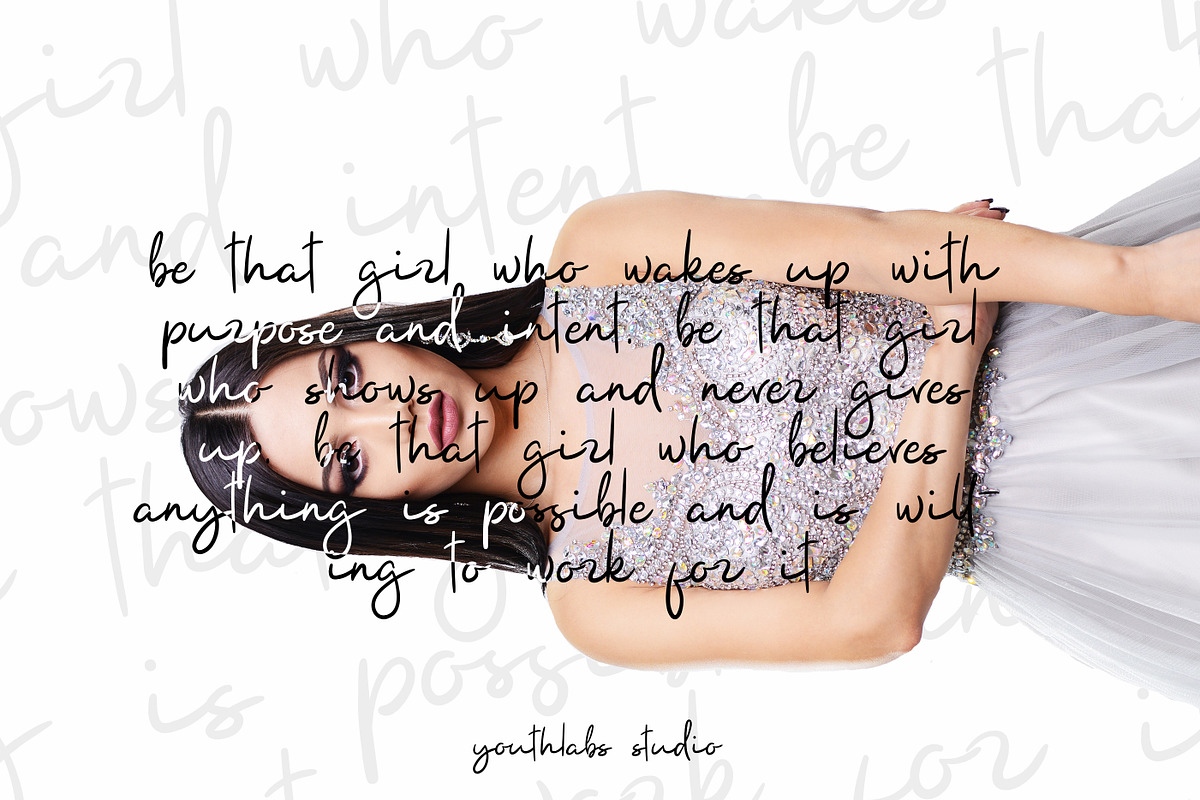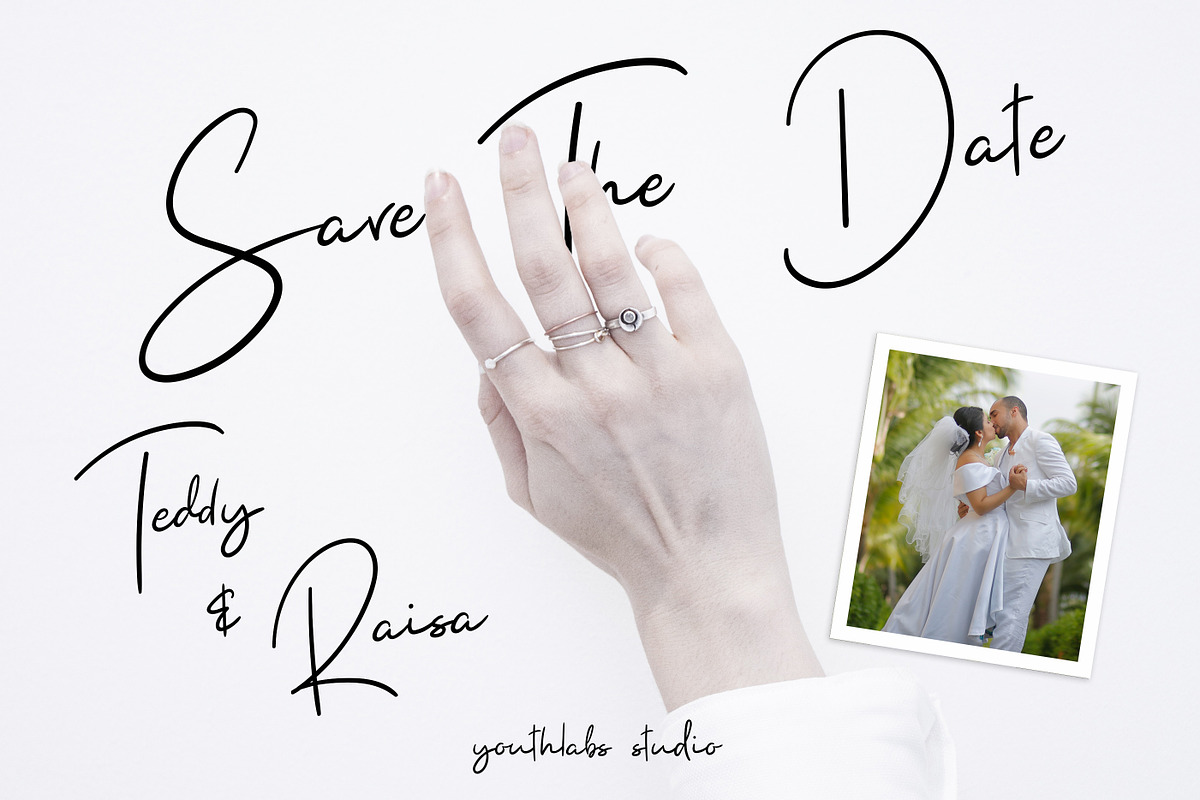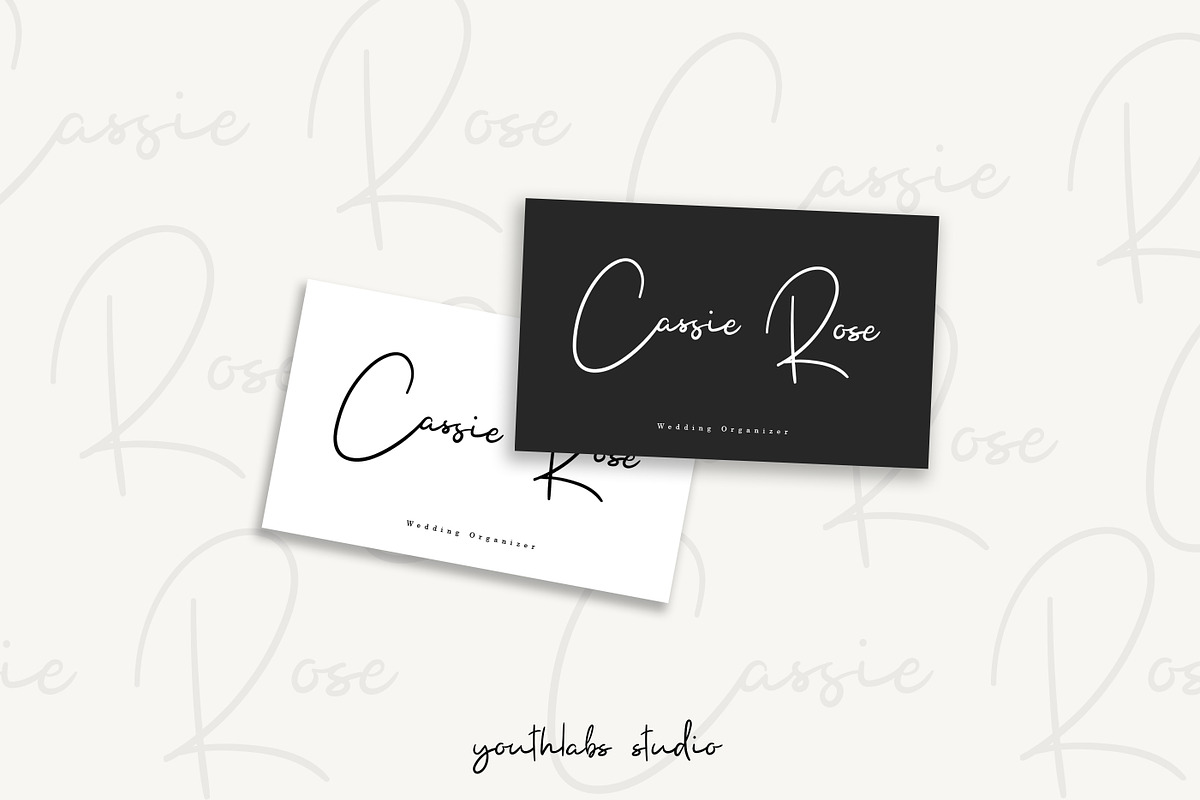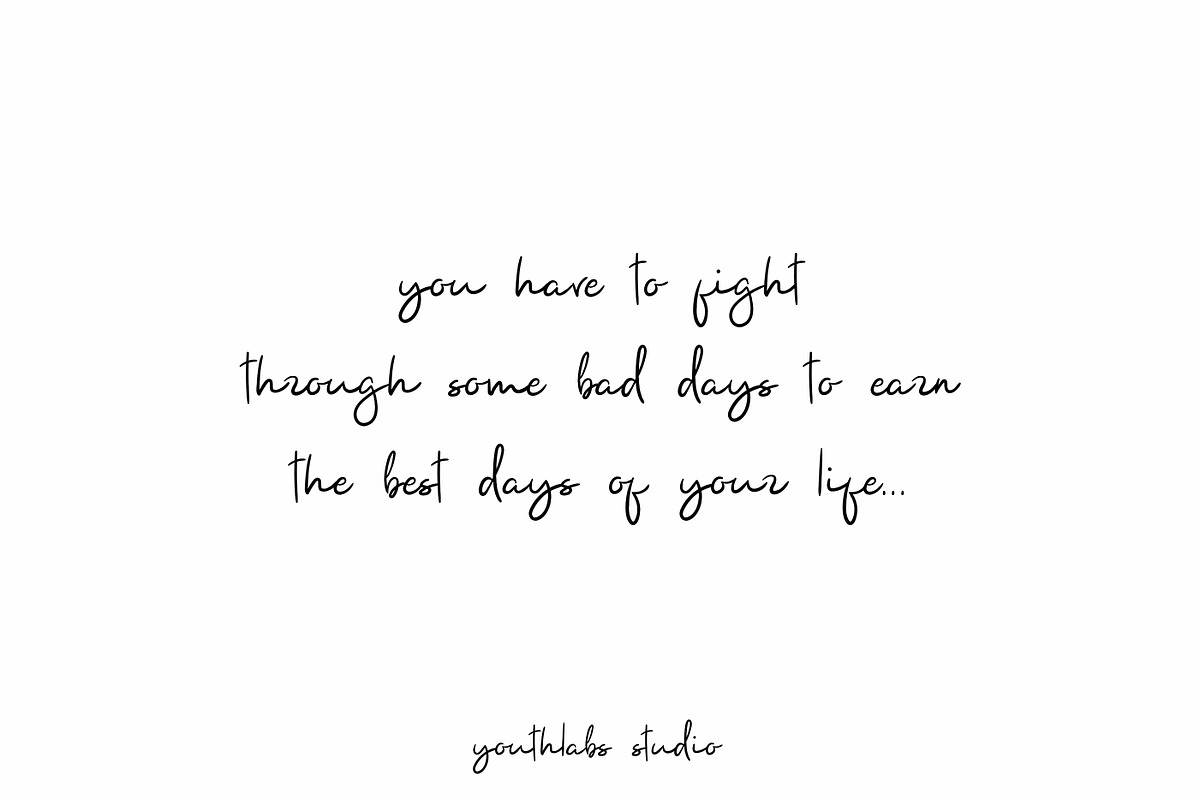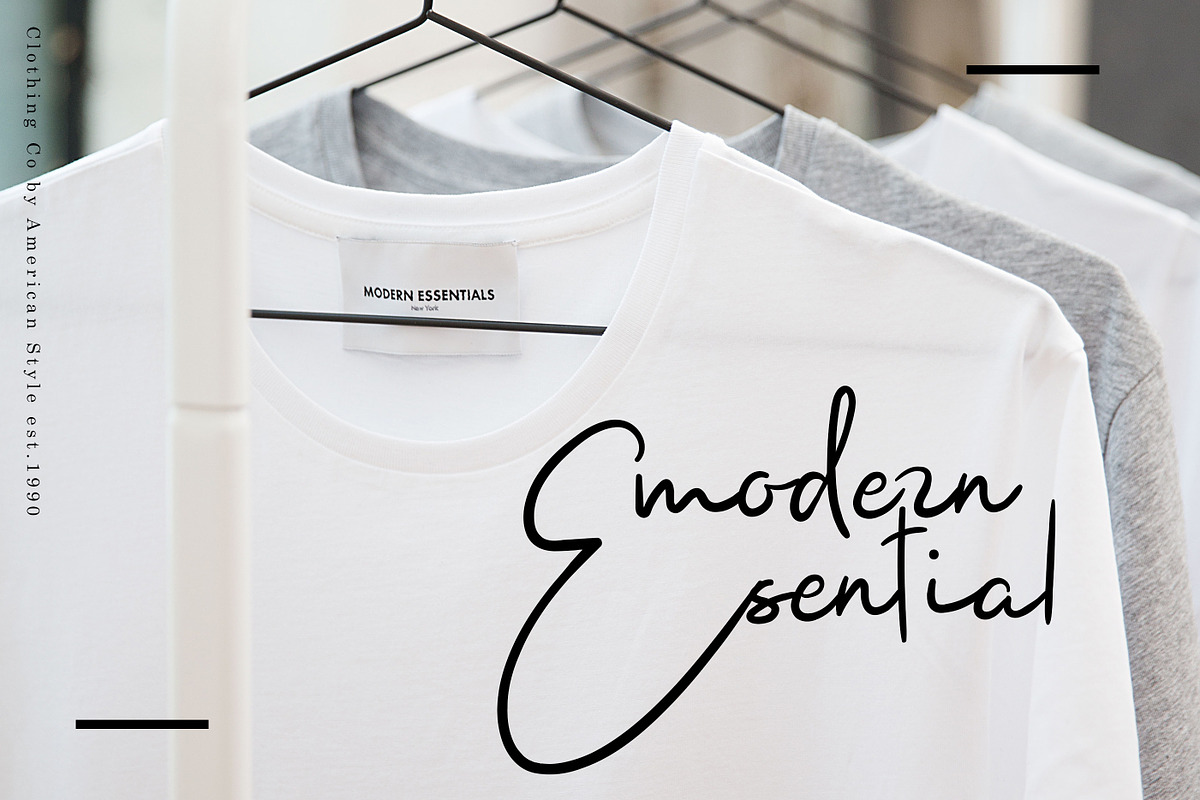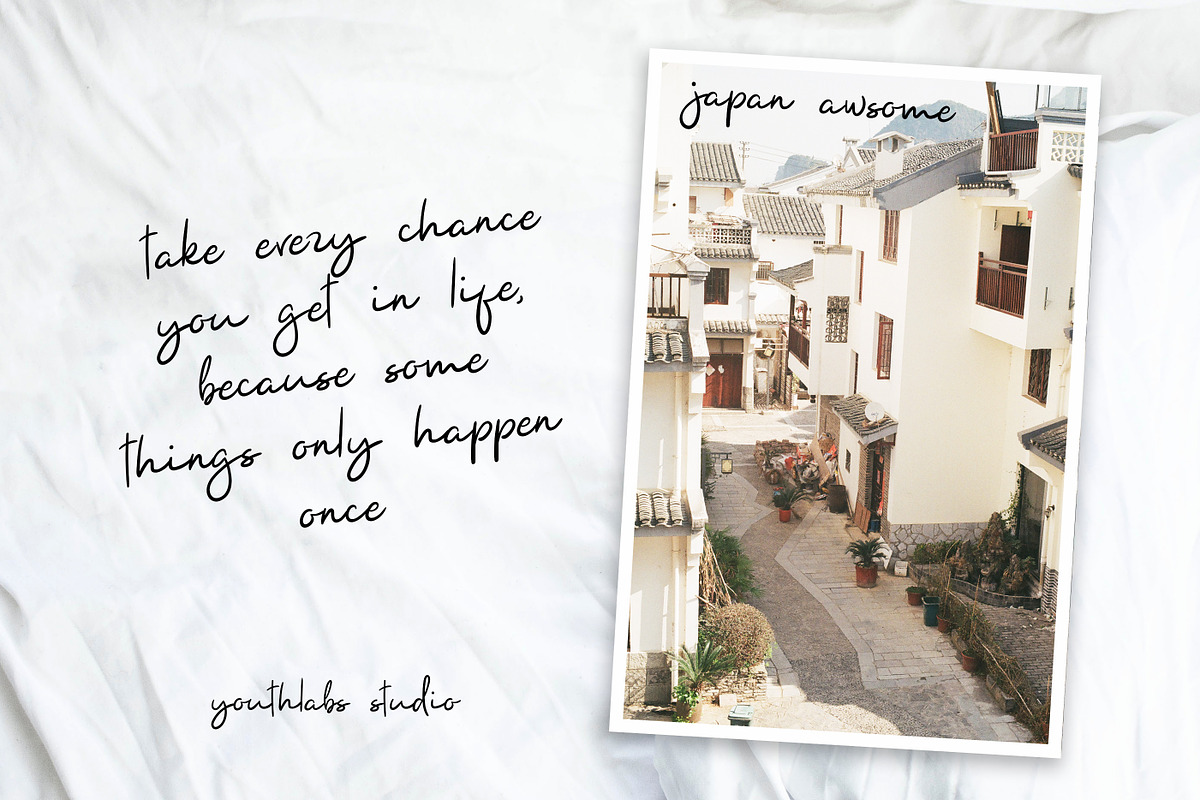
Introducing Yuminika Handwritten Font. Inspired by a friend's handwriting in a letter to a distant friend. Yuminika includes full of georgeous letters. can be used in Uppercase or not, it's equally beautiful
- Yuminika includes full of georgeous letters.
- can be used in Uppercase or not, it's equally beautiful What's Feature ?
- Yuminika Regular
- Yuminika Italic Italic